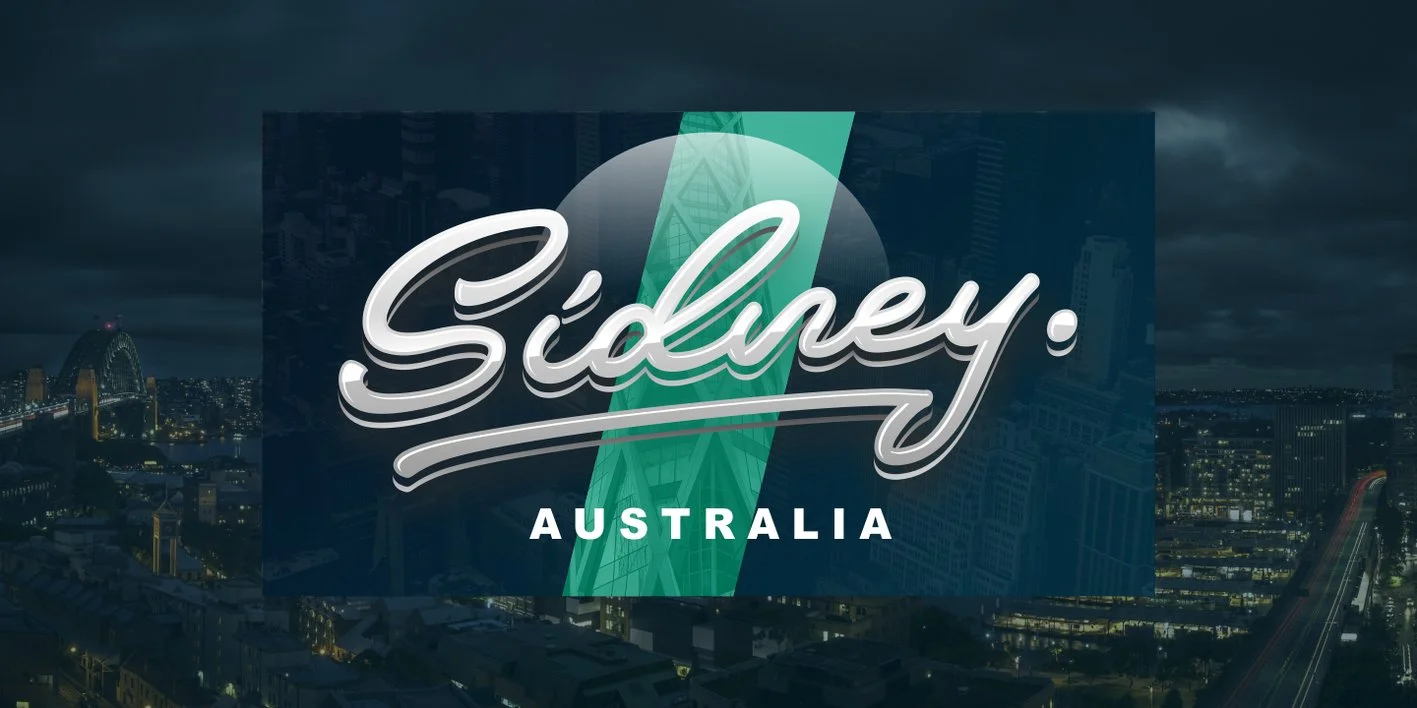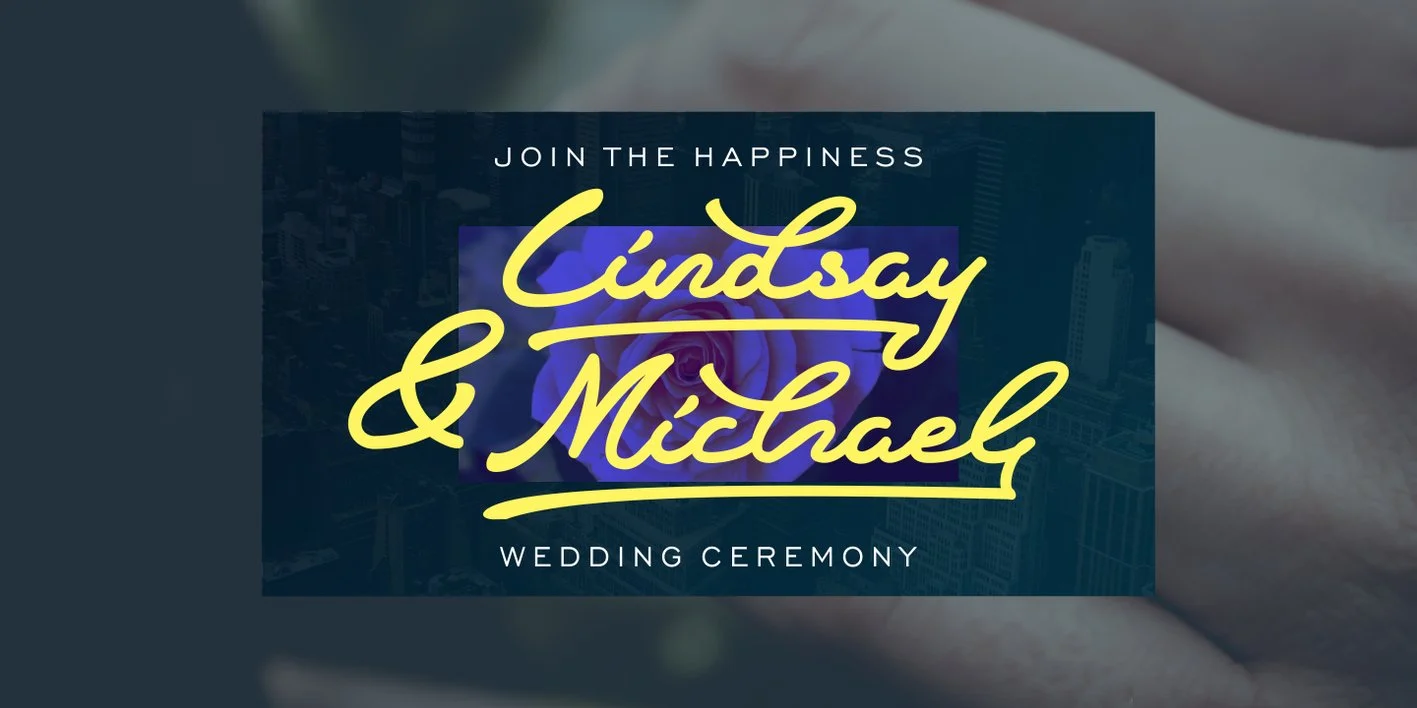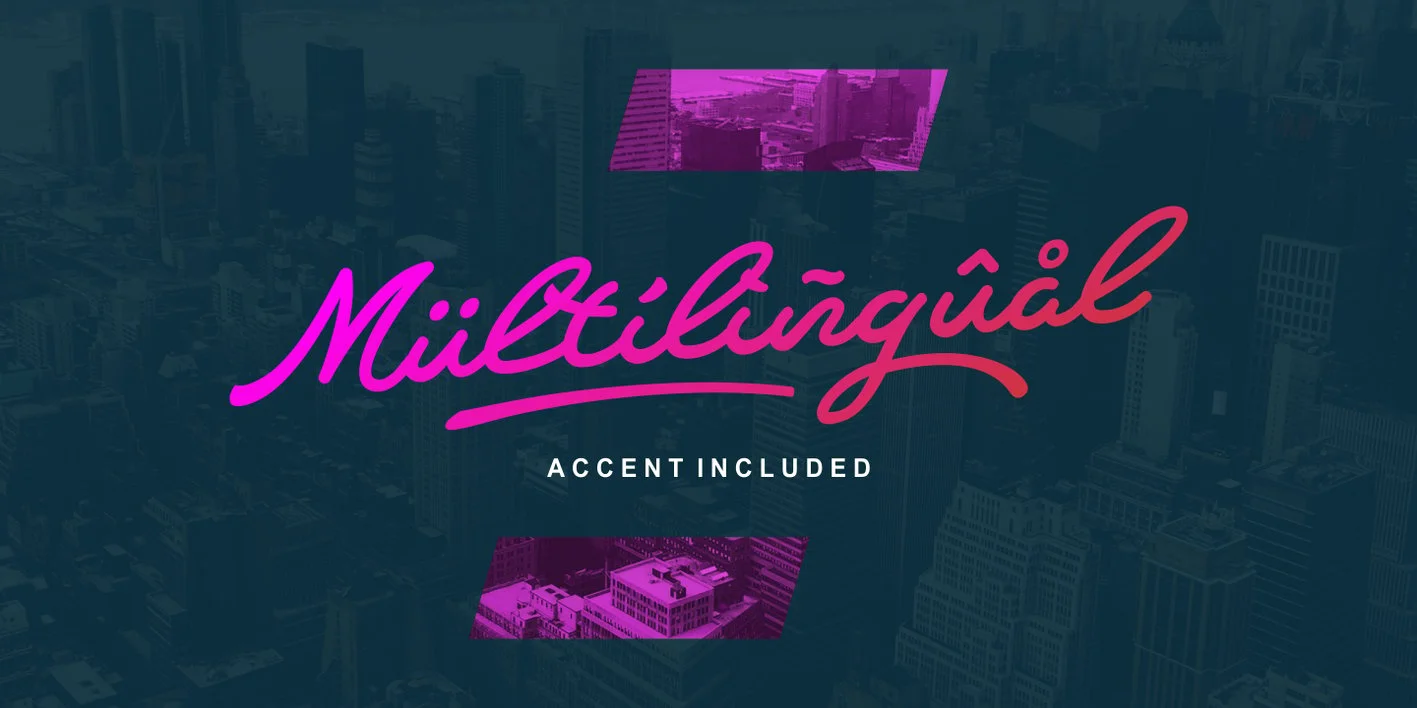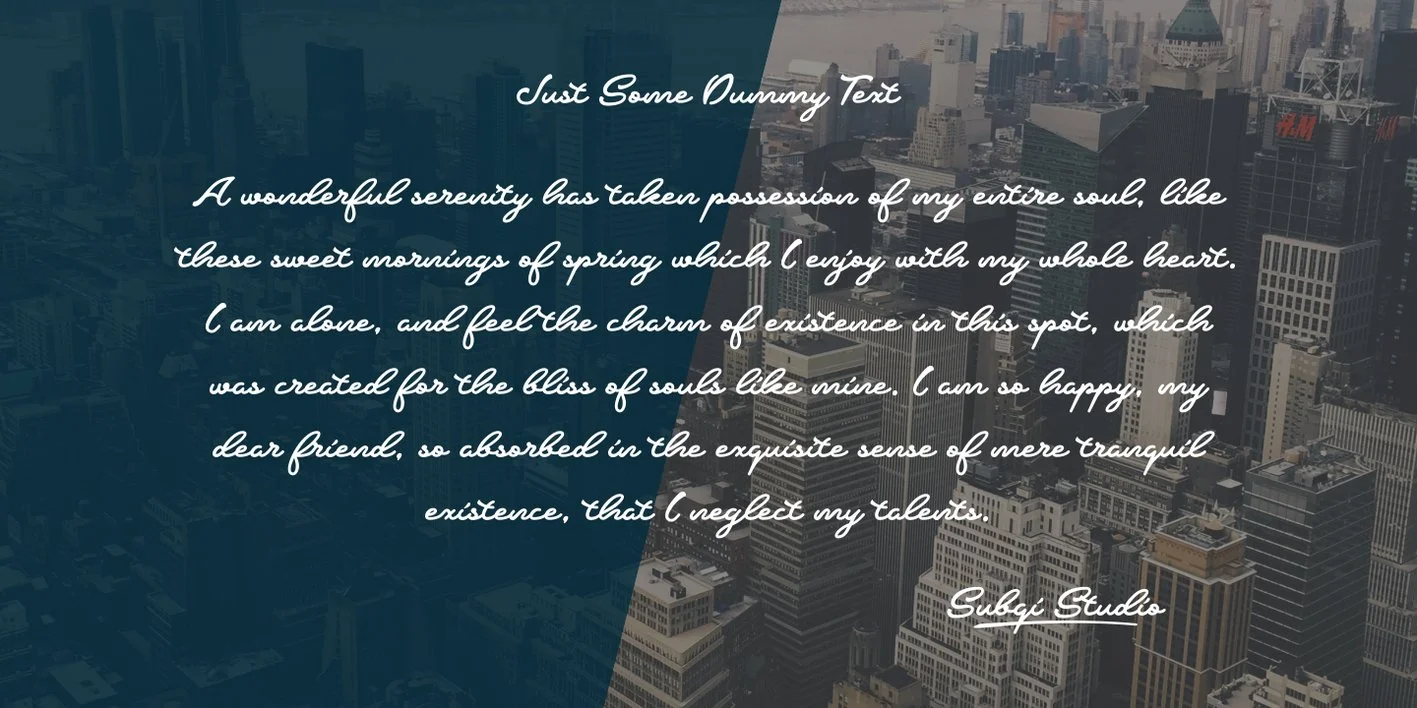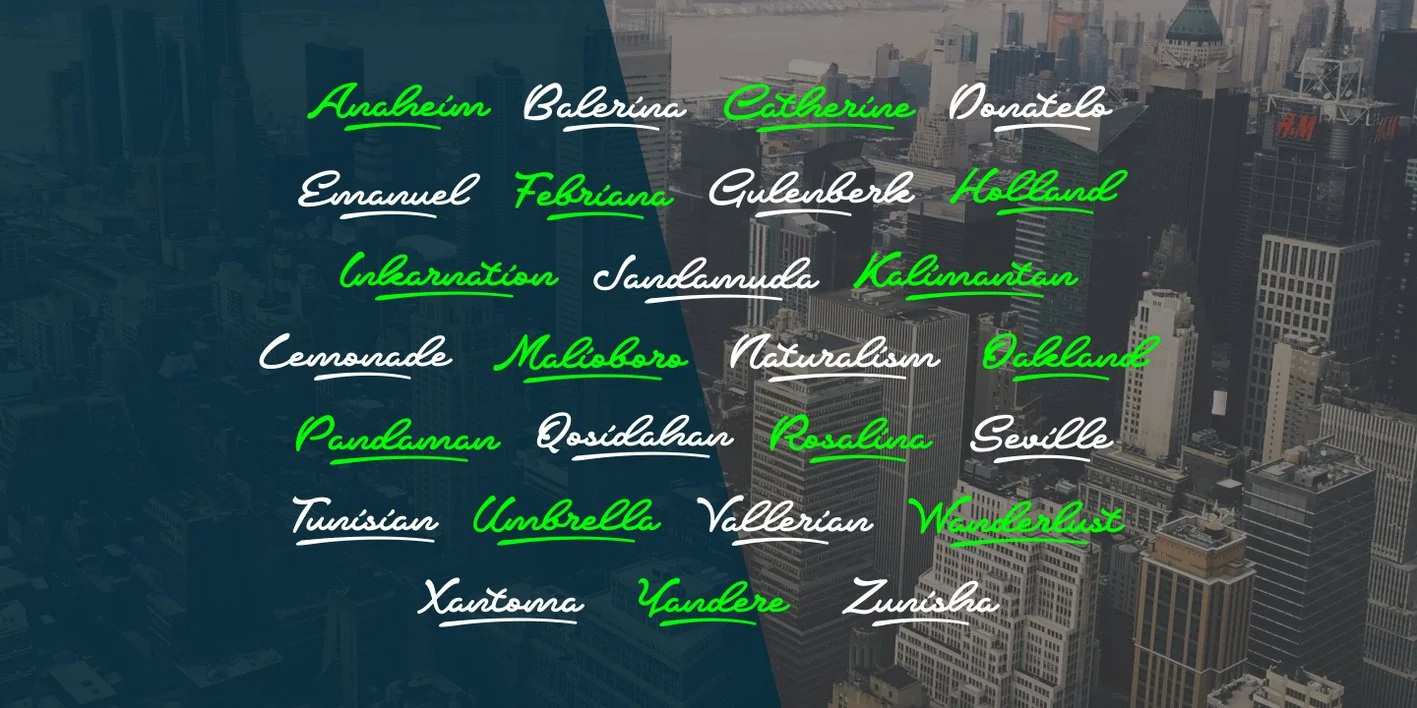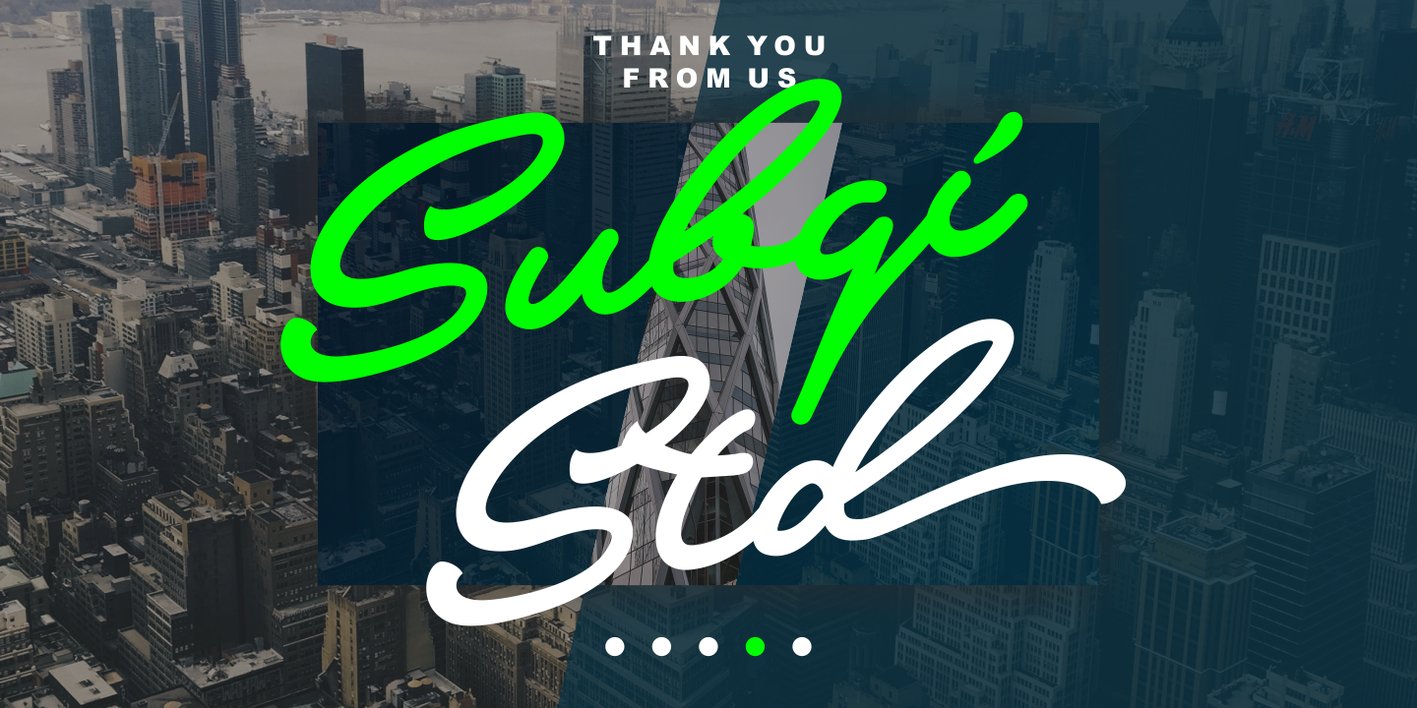
Crumble Font
There is a particular satisfaction in finding a typeface that delivers the kind of restraint that lets content lead without compromise. Crumble consistently provides it. The typeface brings an elegant, calligraphic sensibility to a broad range of creative disciplines, with distinctive character without sacrificing readability that holds up whether the work is print-first or screen-first.
In practice, Crumble proves particularly effective for event signage, wedding invitations, signage systems, feminine branding, advertising campaigns. Designers reaching for it find that the type decisions feel resolved rather than laboured — a useful quality when client timelines are tight.
The range of applications extends to fragrance labels, luxury stationery, social media graphics, greeting cards. That breadth is deliberate: the proportions and spacing were stress-tested across a wide range of mock briefs before the typeface was finalised.
At smaller sizes the design retains its character without becoming cluttered. This resilience across scales makes Crumble equally suitable for a business card and a billboard — a useful property when assets must scale across a campaign.
Brand strategists building visual languages find Crumble a reliable choice for projects that demand both personality and restraint. The design avoids the self-conscious quirkiness that dates quickly, settling instead for considered distinctiveness that holds up over time.